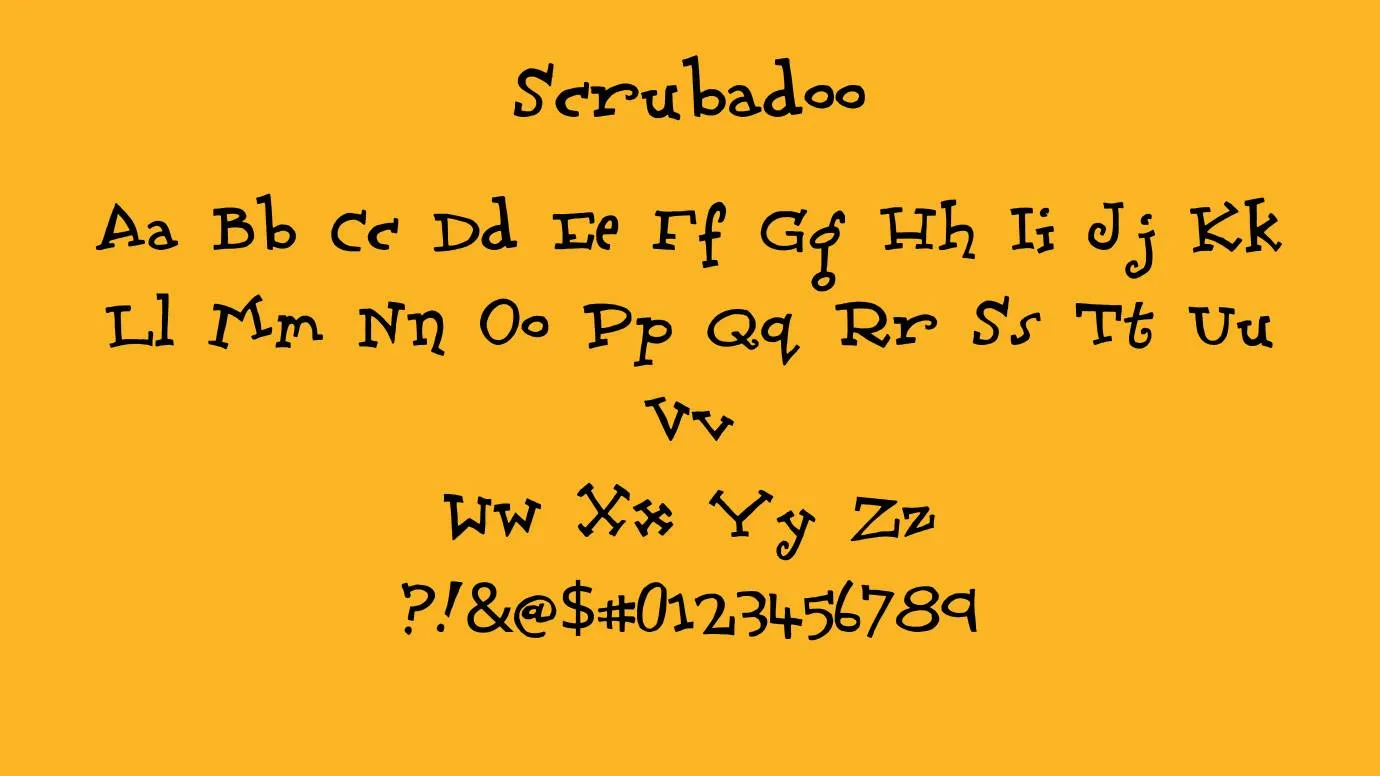
Scrubadoo Font is a very famous fancy texture that was designed by Uddi Uddi. It was launched in 1988. This fancy font is good for making cartoons logos and titles also.
It has three different styles bold, regular, and light so you can make so many amazing projects by using this font. It is also a perfect choice for making cartoons to give a more attractive look.
Scrubadoo Font
NameScrubadoo Font
DesignerUddi Uddi